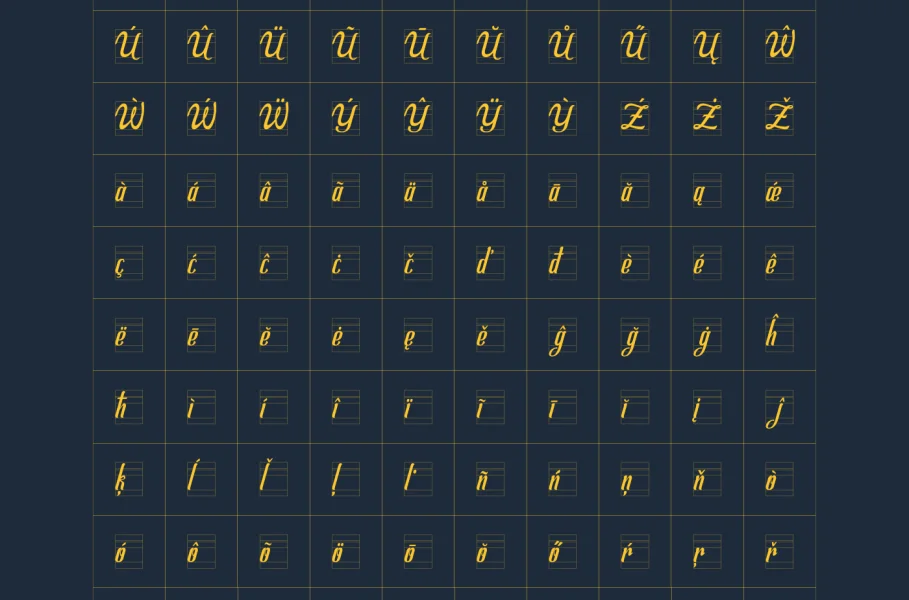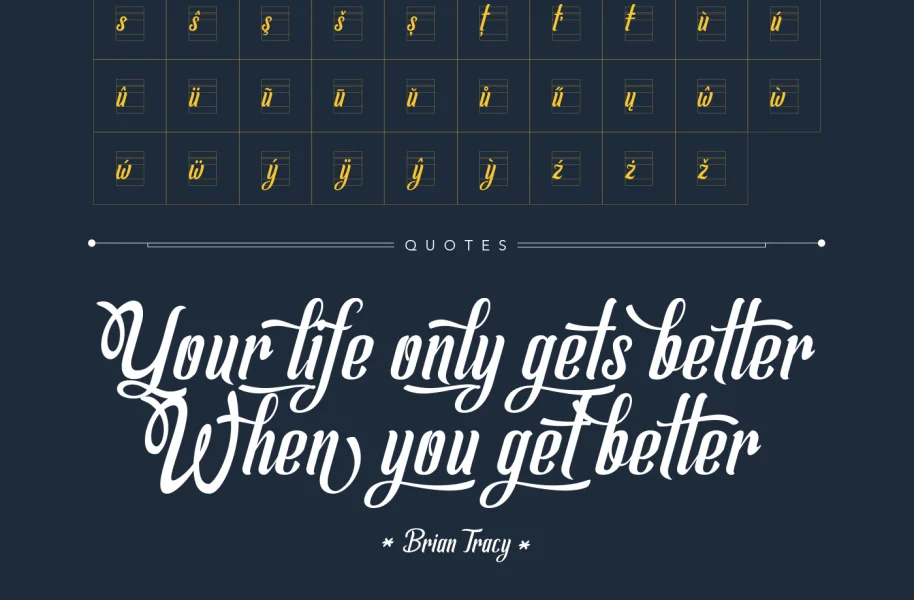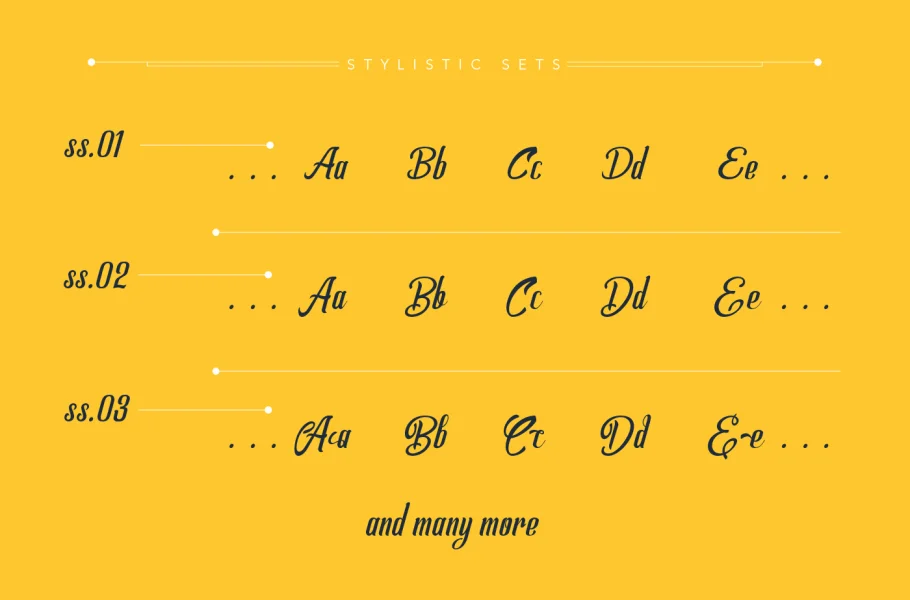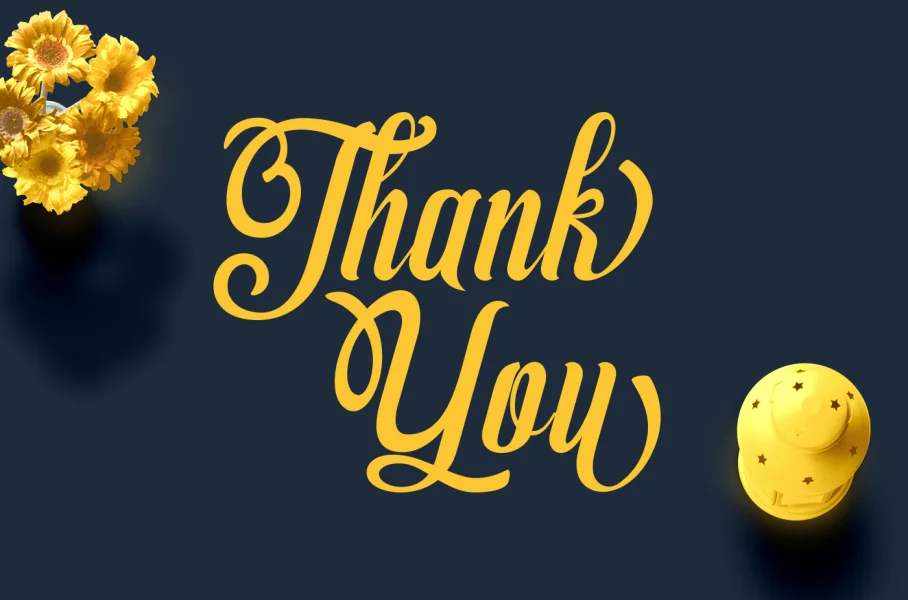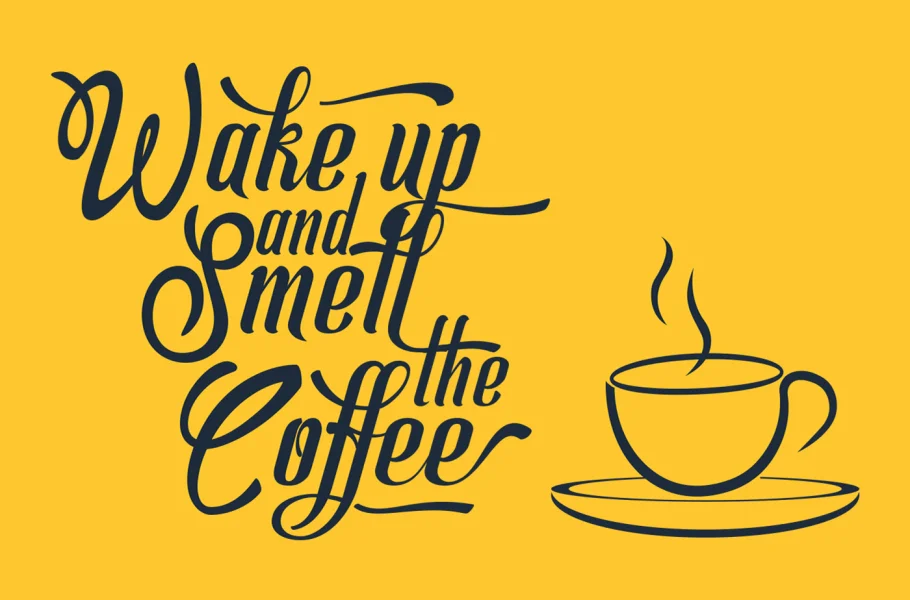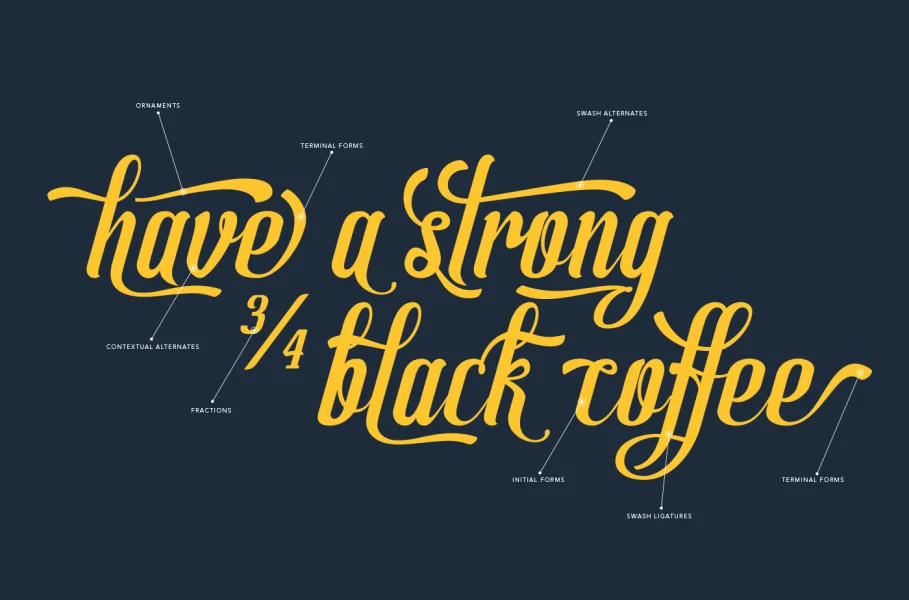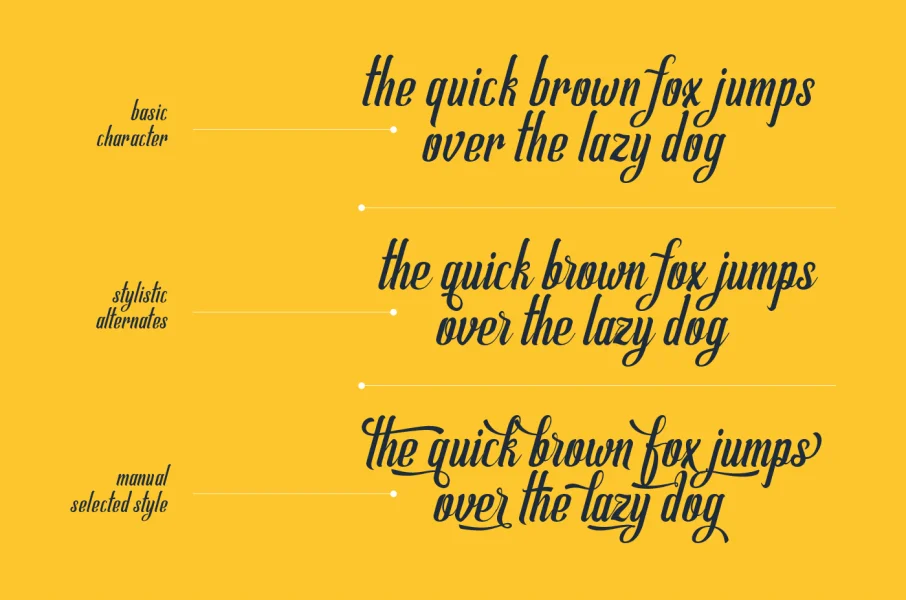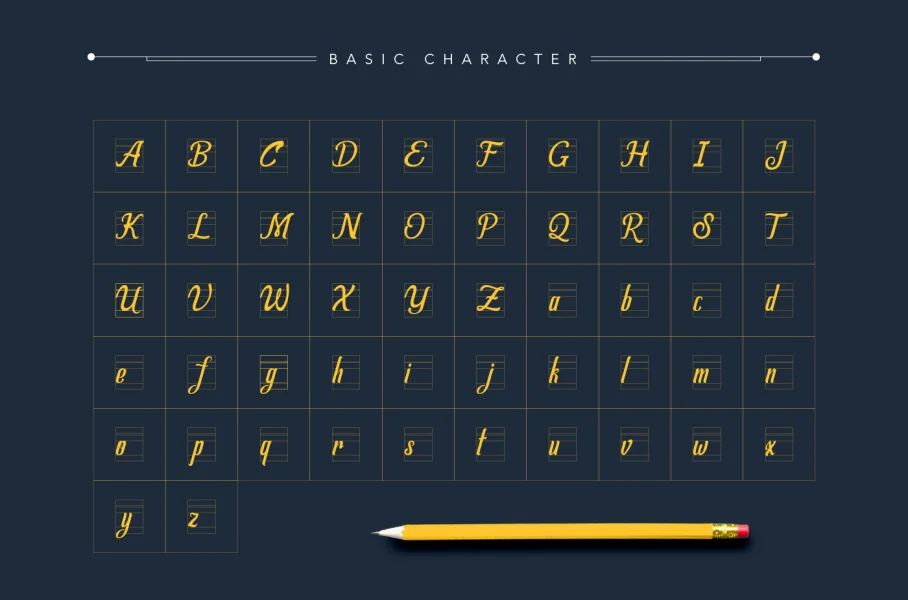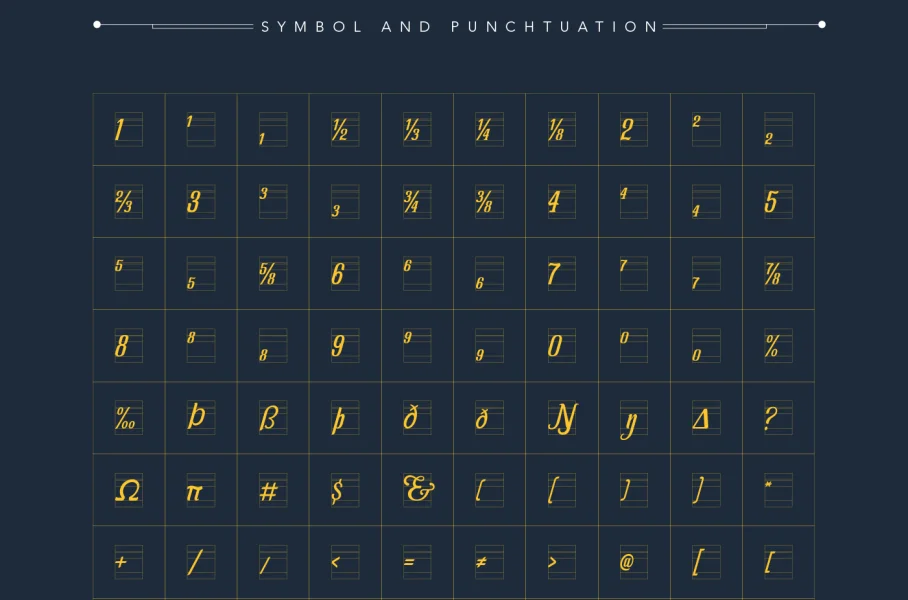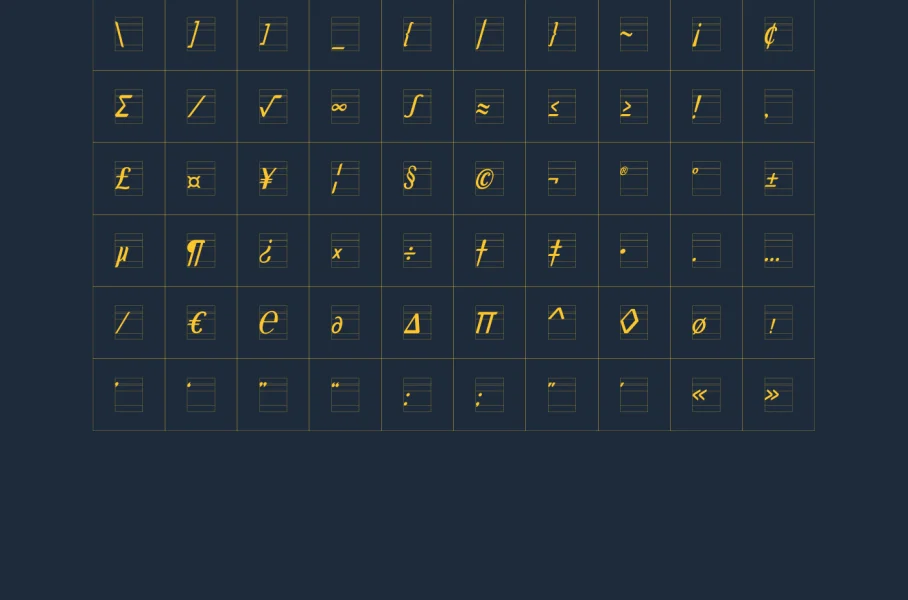
Allema Script Typeface is Modern Calligraphy. This font was designed by handwriting, and it has a modern and unique forms of calligraphy, the writing style is very soft. Allema has a very unique style of calligraphy, it is very suitable for use in the work of modern design.
The Features of this fonts is:
- Standart ligatures
- Discretionary ligatures
- Contextual Alternates
- Stylistic Alternates
- Swash
- Fraction
- Stylistic Sets, Uppercase ss.01- ss.04 Lowercase ss01-ss19
- Multi languange supports